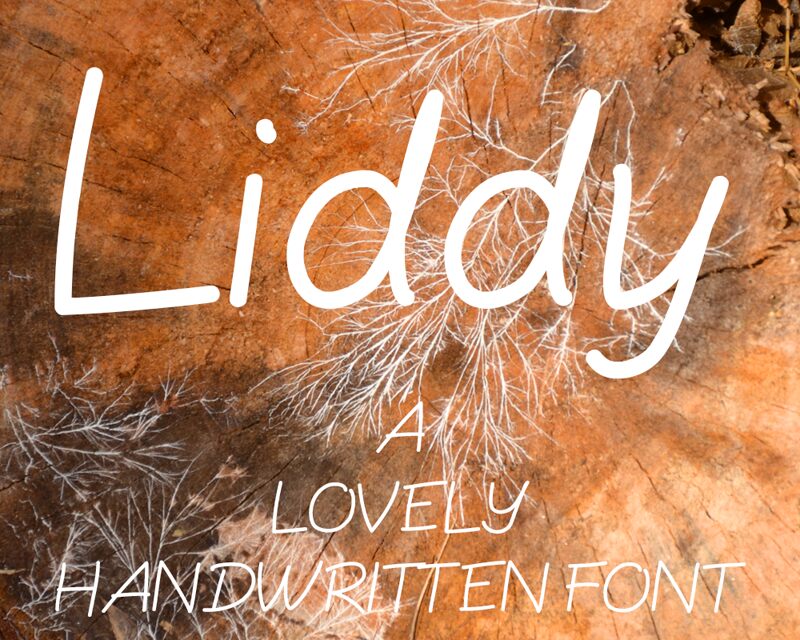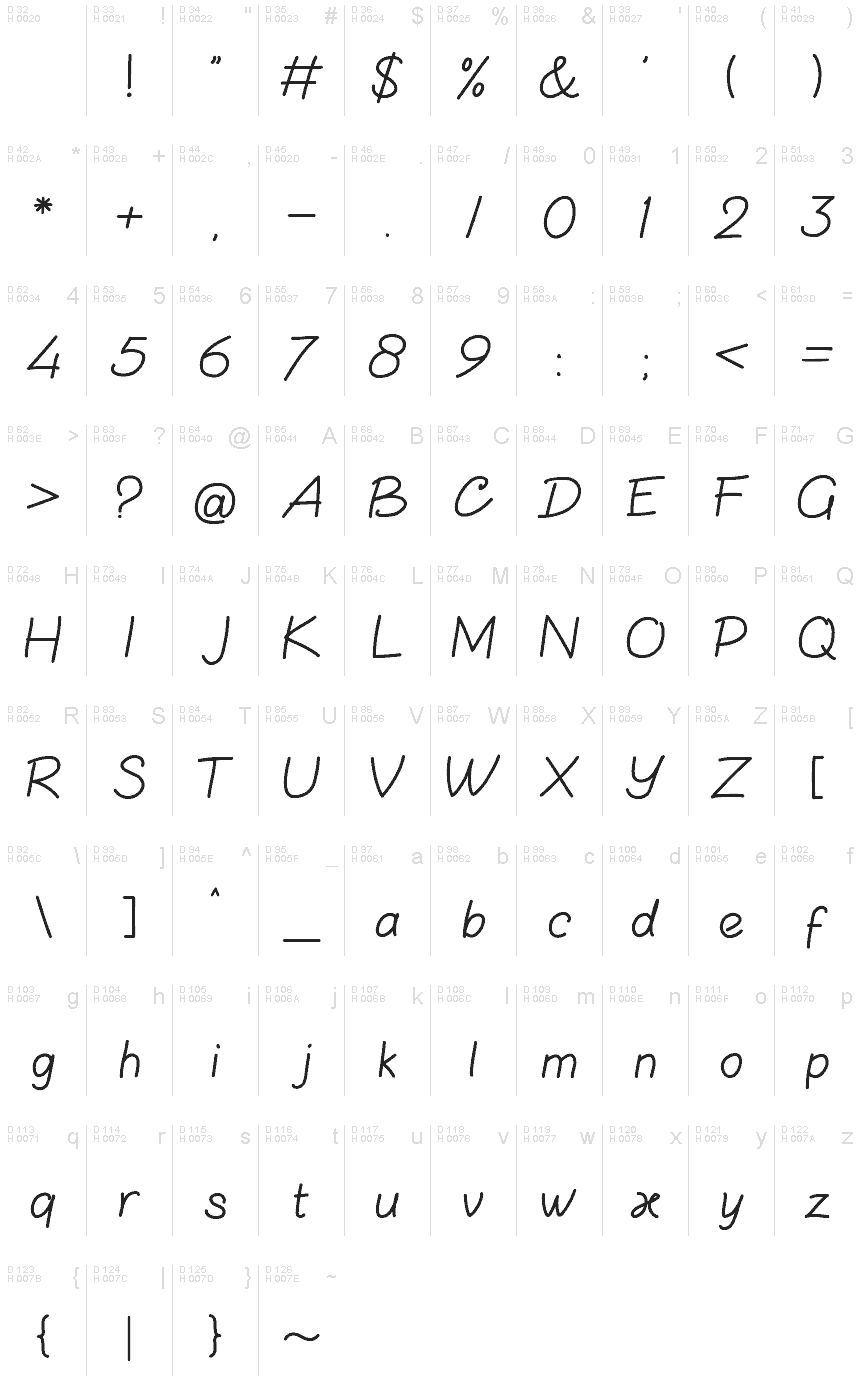
Liddy
Liddy font by Letterey is a free handwritten font inspired by various natural elements. Its flowing texture provides every design with a relaxed, casual vibe that easily gets transferred to the viewer. The loose nature of the character structure makes this a great choice for friendly personal and professional projects alike.